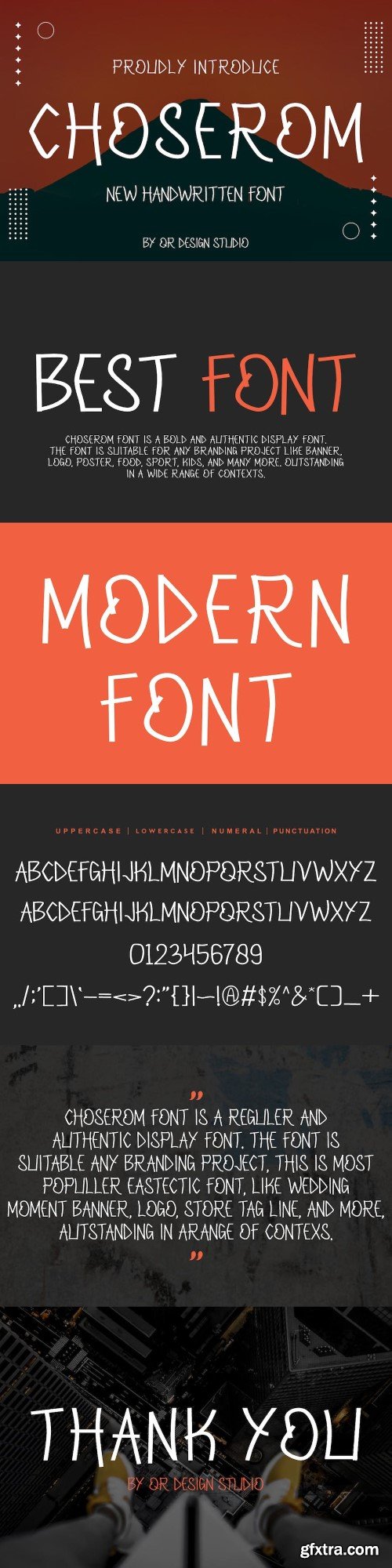
选择体 - 手写字体
Choserom - Handwritten Font is a bold and authentic display font. The font is suitable for any branding project like logo, poster, food, wedding, greeting card, and many more. Outstanding in a wide range of contexts.